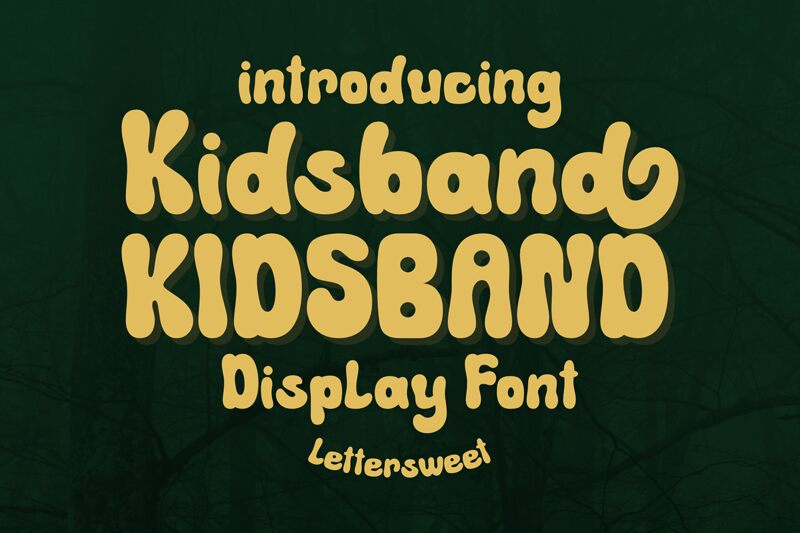
Kidsband Regular
Kidsband, a playful creation by Lettersweet Studio, exudes a vibrant groovy style with its bold and bubbly contours that seem to dance off the page. The typeface's rounded forms and whimsical twists capture the carefree joy and creative spirit of childhood. This display font is crafted to command attention while spreading cheer and lightheartedness.
Ideal for imaginative projects, Kidsband brings a touch of fun to everything from children’s book titles and playful branding to festive posters and lively event invitations. Its eye-catching appeal ensures that any message stands out with a friendly, inviting vibe.